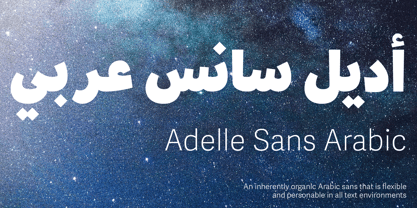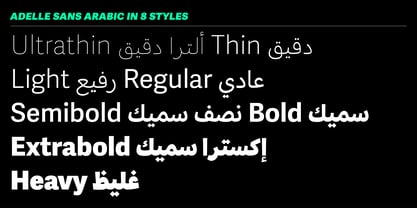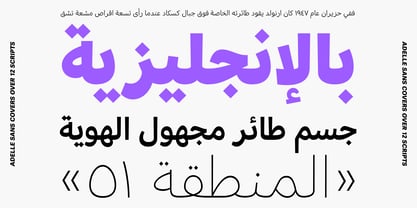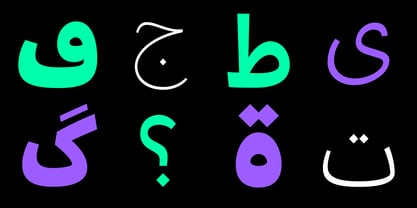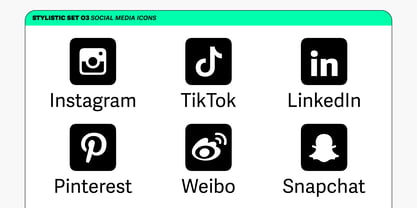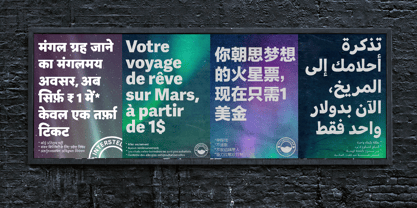
Adelle Sans Arabic
by TypeTogether
The Adelle Sans Arabic Font Family was designed by Azza Alameddine and published by TypeTogether. Adelle Sans Arabic contains 8 styles and family package options.
Adelle Sans Arabic is Azza Alameddine’s translation of the Latin’s forms into the voice of about 230 million people. The original Adelle Sans, José Scaglione and Veronika Burian’s award-winning sans serif, provides a more clean and spirited take on the traditional grotesque sans. As is typical with TypeTogether typefaces, the most demanding editorial design problems were taken into consideration when creating Adelle Sans Arabic. The combination of lively character and unobtrusive appearance inherent to grotesque sans serifs make it an utterly versatile tool for every imaginable situation. Whether for branding, signage, editorial, or advertising, the keyword behind Adelle Sans Arabic’s use is flexibility.
Adelle Sans Arabic is available in eight weights that capitalise on legibility and provide the designer a wide range of text emphasis within their layout. By creating weights from Ultrathin to Heavy, the Arabic is a perfect counterpart to the Latin in tone, vertical proportions, and functionality. This ensures an harmonious fit between both type families in the same block of text and a pleasing change of texture when used at similar point sizes.
Rooted in the belief that broad language support is crucial to modern type design, Adelle Sans Arabic is yet another push in TypeTogether’s ongoing multilingual efforts. Adding language support is not a simple act of matching geometry stroke for stroke; each script must harmonise with the others while still maintaining its own identity. Arabic script is inherently more organic than Latin, with a mix of round and straight shapes that are built with connected, flowing strokes. The rigidity of Adelle Sans Arabic is therefore softer than its Latin counterpart. The Adelle family’s naturally clean and spirited shapes lend themselves to a graceful Arabic translation of the colour and feel of the Latin, matching the overall functionality, purpose, and cultural awareness.
Across the entire multilingual family – Latin, Greek, Cyrillic, Armenian, Devanagari, Thai, and Arabic, with more on the way – each has been engineered to optically match the proportions of its counterparts. Adelle Sans Arabic’s exhaustive character set and OpenType support delivers consistent, flexible, and personable results in digital and printed multilingual documents and multicultural branding.